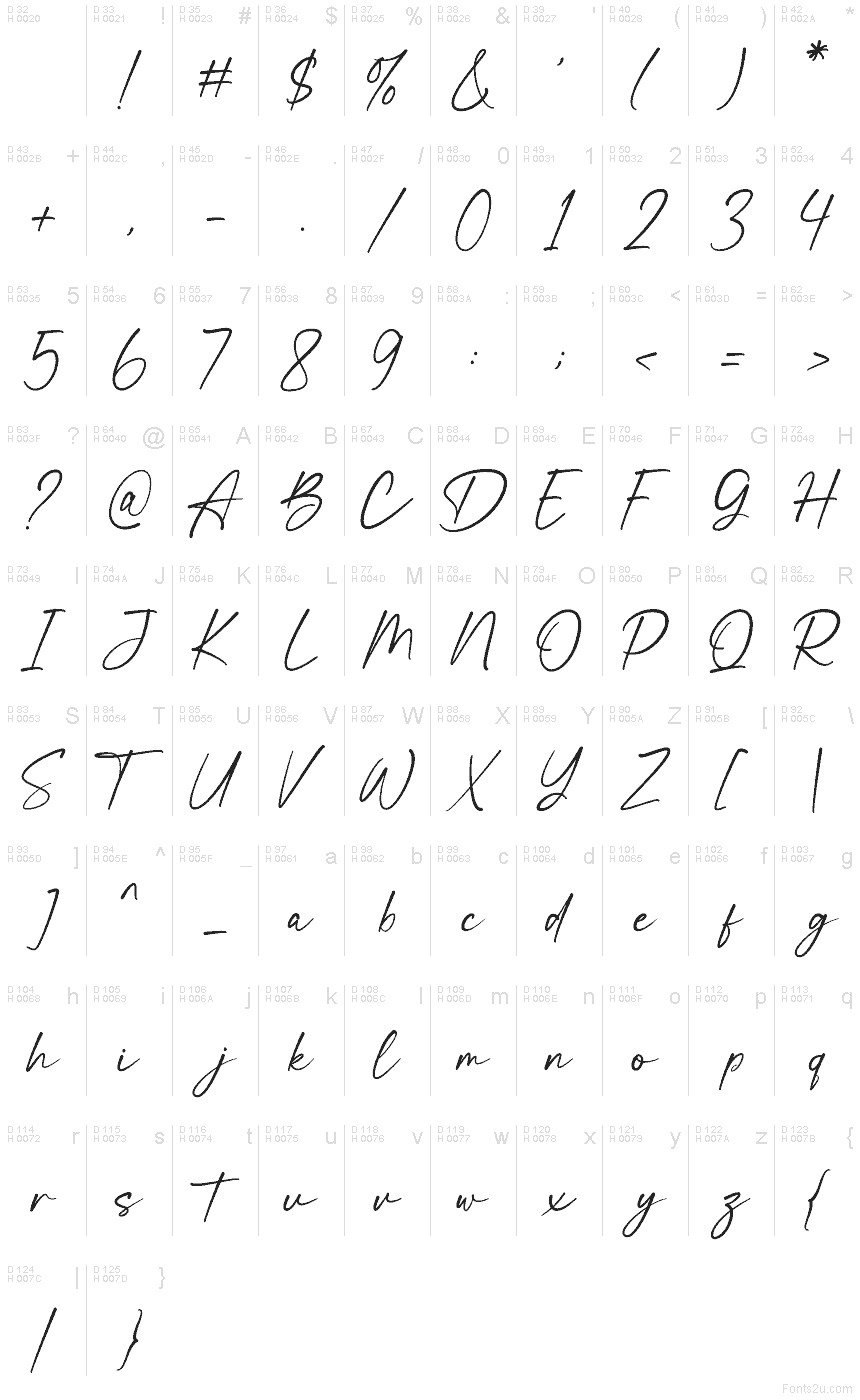
Modern Britania
Modern Britania font by RantautypeStudio embodies a handwritten-style with an elegant and modern aesthetic. The expressive letters in the font carry an artistic flair that matches their casual sophistication while bringing a touch of warmth and a personal feel to designs.